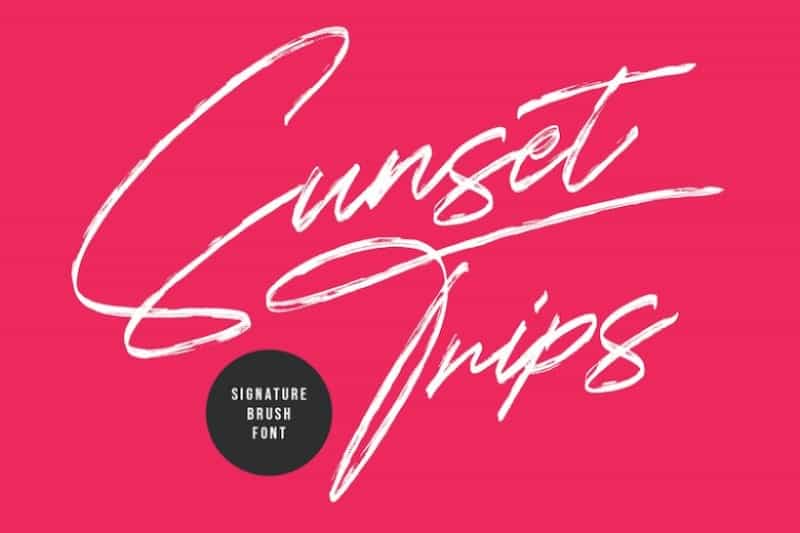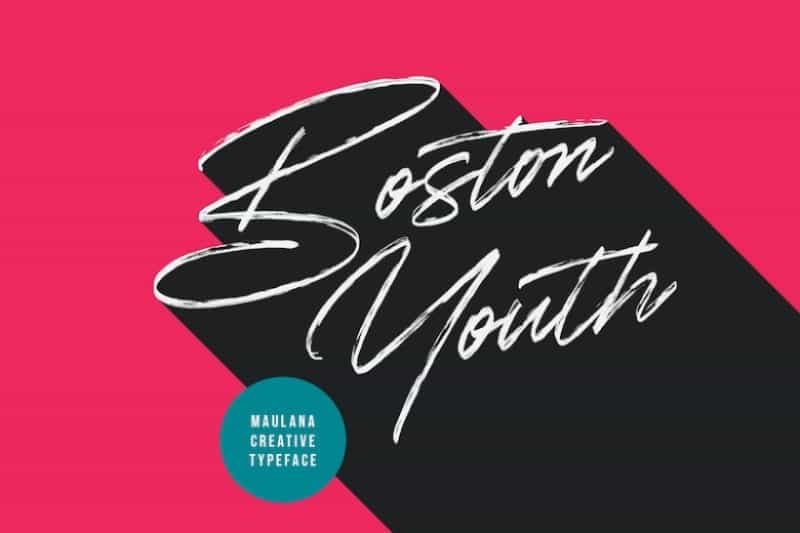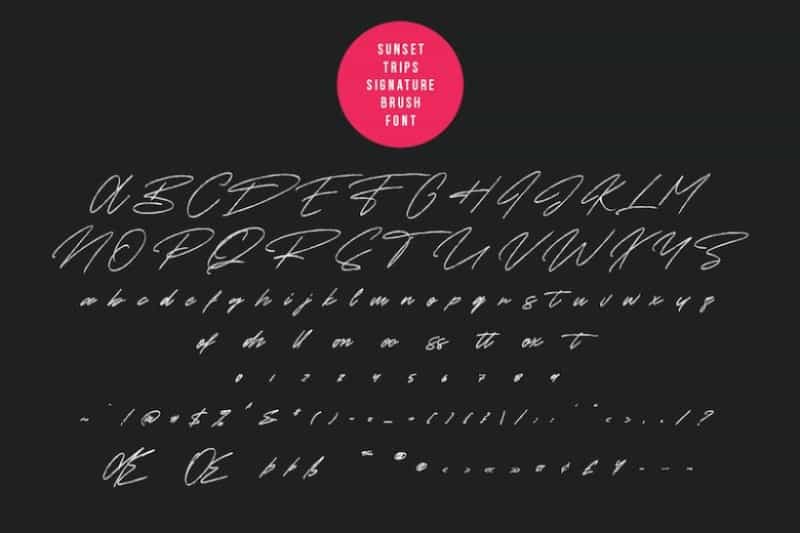
Sunset Trips is the signature typeface with contemporary styling. Boasting quick strokes and authentic dry textures, Sunset Trips makes an appealing and confident statement in all kinds of design work. “Sunset Trips” is an ideal design element for stationery, signature logos, book or magazine cover headers for websites apparel branding packaging design and much more.